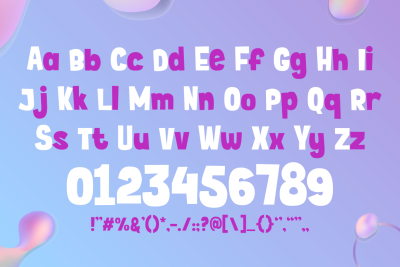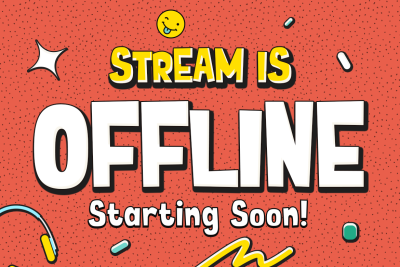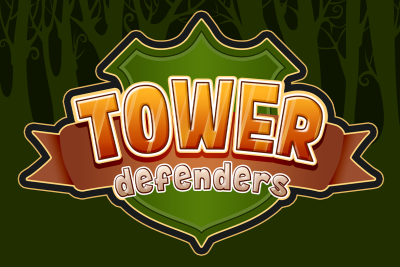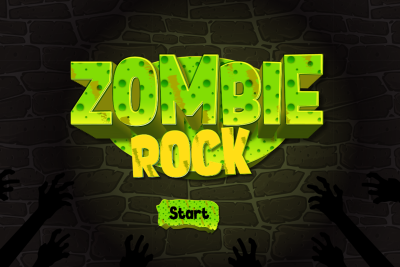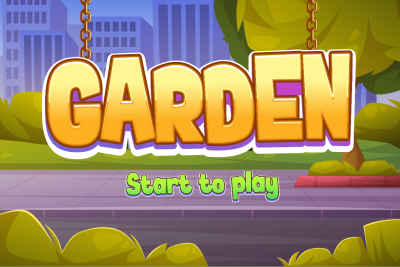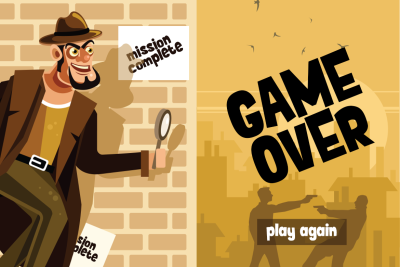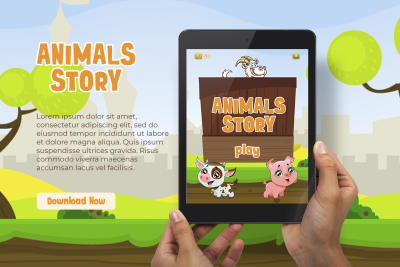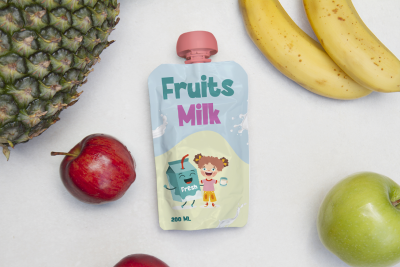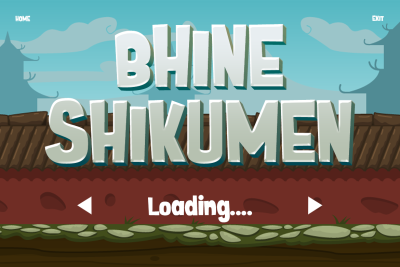
Kids font Moghul is a cheerful and vibrant typeface designed to bring joy and energy to your projects. Its bold, rounded letters exude a playful and approachable vibe, making it perfect for designs targeting children and family-friendly audiences. The simplicity of its design ensures easy readability, while the subtle curves and soft edges add a touch of whimsy and charm. Kids font Moghul is not just a font; itโs a fun and versatile tool for creative expression.
This typeface stands out with its modern yet timeless appeal, making it suitable for both digital and print media. Whether you’re crafting colorful posters, designing interactive learning materials, or branding a product, Moghul effortlessly adapts to various themes. Its clean yet lively appearance ensures your content remains eye-catching and engaging, without compromising on clarity. By combining boldness with playfulness, Kids font Moghul breathes life into any design it touches.
Moghul is ideal for designers, educators, and businesses focusing on childrenโs products or services. It works beautifully for creating storybooks, colorful worksheets, and educational tools that keep young learners engaged and entertained. Its bold, inviting style also makes it an excellent choice for classroom decor, bulletin boards, and other learning spaces.
Marketers and branding professionals can use Moghul to create memorable packaging, logos, and promotional materials for family-friendly products. From toys to snacks to clothing, its cheerful design resonates with kids while still appealing to parents. Event planners will find it perfect for crafting playful invitations, banners, and decorations for kids’ parties, school events, and community gatherings.
Additionally, digital content creators and game developers can enhance their projects with Moghulโs vibrant, energetic look. Itโs perfect for apps, websites, and animations aimed at younger audiences. Whether youโre designing for print or digital, ensures your message is delivered with joy and creativity. By choosing Moghul, youโre adding a touch of fun and excitement to your designs, making them unforgettable!